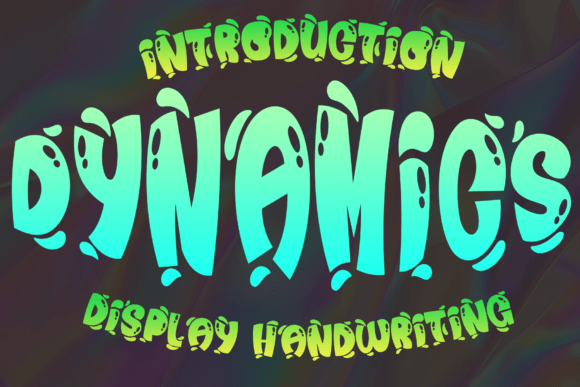
Dynamics: A Bold Typographic Statement
Choosing the right font for a project can feel like selecting the perfect outfit for a special occasion. It needs to fit the mood, make a statement, and feel just right. When I was redesigning the header for a lifestyle blog focused on mindfulness and creative living, I found myself drawn to Dynamics—a decorative display font that carries a unique energy. Its exaggerated, bulbous letterforms and expressive curves felt like a breath of fresh air in an otherwise minimalist design landscape.
The Visual Character of Dynamics
Dynamics is not a font you’d use for body text, but as a headline or a decorative element, it commands attention. Each character has a playful yet confident presence, with rounded edges and dynamic strokes that give the typeface a sense of motion. The font’s personality feels almost like a visual metaphor for creativity itself—bold, expressive, and full of life. It doesn’t shy away from being noticed, which makes it ideal for projects where the typography needs to reflect a strong editorial identity.
What sets Dynamics apart is its rhythm. The spacing between letters isn’t rigid; it flows naturally, creating a sense of balance even in its most exaggerated forms. This makes it versatile for different layouts, whether it’s a bold magazine cover or a subtle pull quote in an article.
Using Dynamics in Editorial Projects
In a recent project, I used Dynamics for the title of a recipe ebook. The font’s expressive curves added a whimsical touch that matched the book’s theme of joyful cooking. It worked especially well when paired with a clean serif font for the body text, creating a contrast that enhanced readability without sacrificing style.
Another instance was in a wedding guide, where Dynamics was used for section headings and decorative accents. The font’s boldness helped break up dense information, guiding the reader through the content with visual clarity. It also brought a sense of personality to the guide, making it feel more approachable and engaging.
Dynamics in Digital and Print Layouts
When testing Dynamics for a newsletter graphic, I was pleased with how it scaled across different devices. On mobile screens, the font remained legible and impactful, though I avoided using it for anything smaller than 24pt. In print, its rounded shapes made it easy on the eyes, even at larger sizes.
For long-form content, such as a coaching workbook or a printable planner, Dynamics was best suited for titles and headings. Using it for body copy would have been overwhelming, as the font’s expressive nature can make reading difficult over extended periods. However, as a decorative accent or in short phrases, it added a distinctive flair that elevated the overall design.
Practical Considerations for Designers
Before integrating Dynamics into any project, it’s important to check the font’s available styles, alternates, and ligatures. These features can greatly enhance the typographic experience, allowing for more refined and intentional design choices. The font also supports multiple languages, which is essential for global publications or multilingual content.
Pairing Dynamics with Other Fonts
Dynamics works best when paired with fonts that offer contrast and clarity. A classic serif font like Georgia or Baskerville can provide a solid foundation for body text, while a modern sans serif like Helvetica or Roboto can serve as a reliable companion for captions and navigation elements.
For a more contemporary look, pairing Dynamics with a clean, geometric sans serif can create a balanced and professional aesthetic. This combination is particularly effective in digital magazines or editorial feature pages where both visual interest and readability are key.
When designing for social media graphics or web banners, Dynamics can be used to draw attention to key messages. Its boldness makes it ideal for headlines or call-to-action buttons, where clarity and impact matter most.
Conclusion
Dynamics is a premium font that brings a distinct personality to any editorial project. It excels in titles, headers, and decorative elements, offering a visual language that speaks to creativity and expression. While it may not be suitable for body text, its ability to enhance visual hierarchy and editorial mood makes it a valuable addition to any designer’s toolkit.
Whether you’re working on a lifestyle blog, a recipe ebook, or a digital magazine, Dynamics can help define your publication’s identity. With thoughtful pairing and strategic use, it can transform the way your content is seen—and felt.